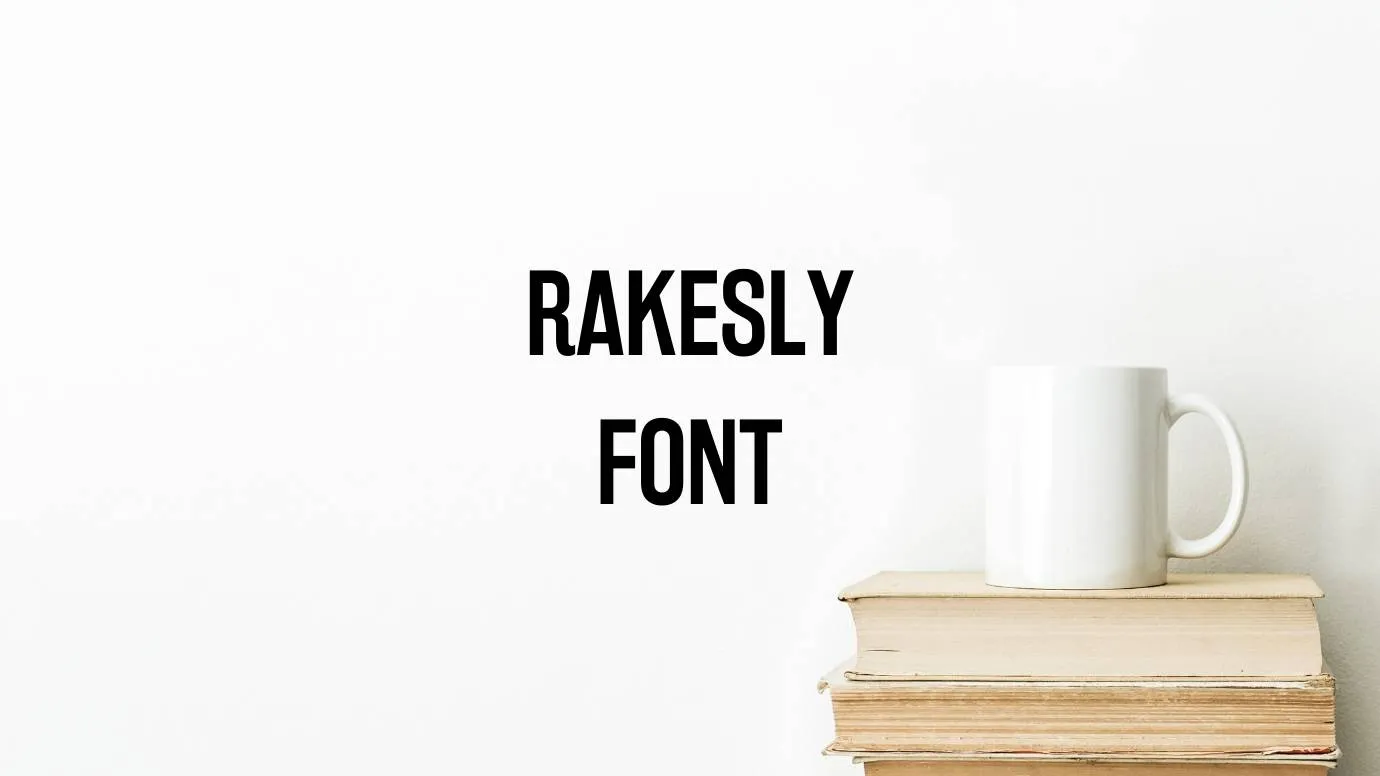
Rakesly Font Family is an ultra-modern typeface is the Rakesly font family and the designer of this typeface is a remarkable designer named Ray Larabie. Typodermic foundry was released this amazing sans serif typeface in the year 2014.
This font family has 319 quirky glyphs and 392 interesting bold characters including All case letters, basic punctuations, numerals, currency symbols, letterlike symbols, and many special characters.
Rakesly Font